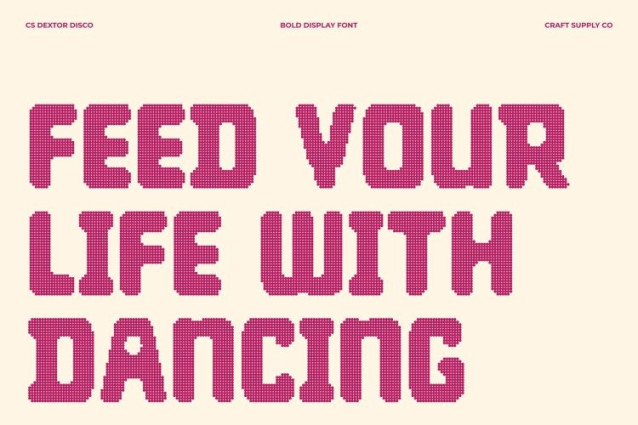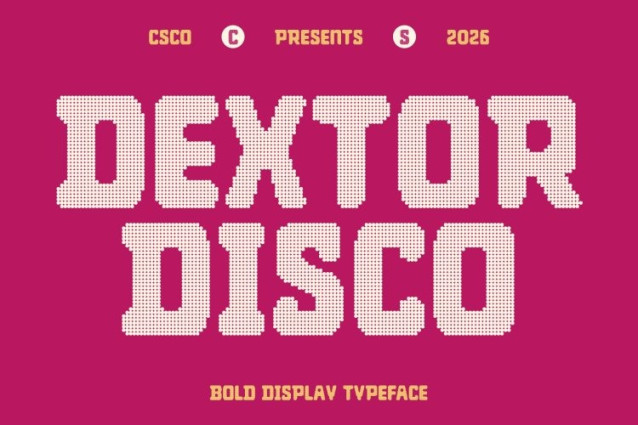
CS Dextor Disco Font
CS Dextor Disco Font This is a bold sans serif font designed to make a powerful and energetic impression. Its solid, rounded letterforms project confidence while radiating a playful, festive spirit. Enhanced with disco-inspired flair, the font feels lively and expressive perfect for designs that want to stand out with bold clarity and celebratory style.
Rounded Shapes with Glamour and Modern Friendliness
The smooth, rounded edges balance the heavy weight of the font, creating a look that is both strong and inviting. With its disco influence, these curves feel dynamic and radiant, echoing the glow of flashing lights and the movement of the dance floor. The result is a typeface that feels modern, glamorous, and full of life.
High Visibility with Energetic Impact
Built with thick strokes and clean geometry, this font ensures excellent legibility at large display sizes. Its structured yet animated form captures attention instantly, making every headline feel bold, upbeat, and energetic ideal for vibrant layouts that demand visibility and excitement.
Perfect for Festive Branding and Eye-Catching Designs
From party posters and event promotions to bold branding, digital campaigns, and creative editorials, this font delivers a confident, festive presence. Designed to emulate the energy of the dance floor and the sparkle of disco lights, this font brings glamour, rhythm, and contemporary appeal to every design it touches.